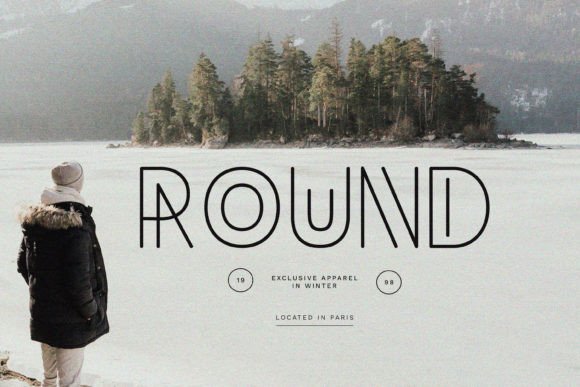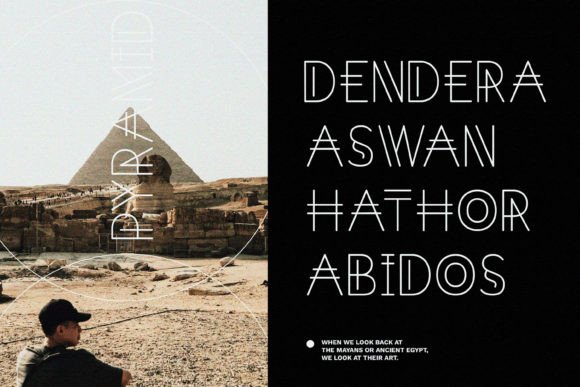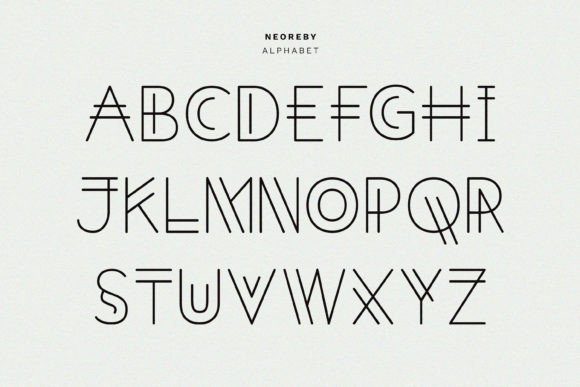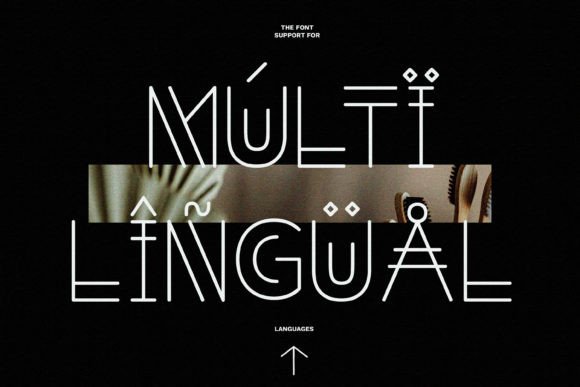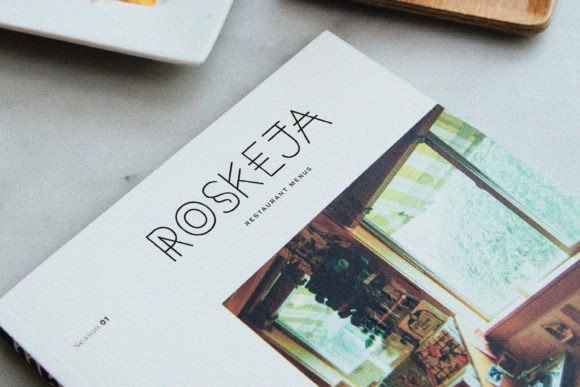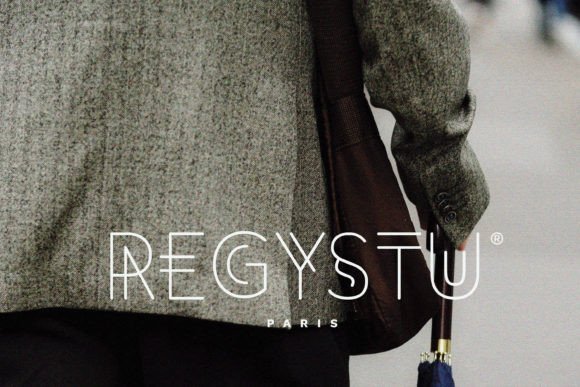
Introduction to Neoreby Font
Have you ever found yourself in a creative rut, staring at a blank page, searching for the perfect design element to bring your project to life? You’re not alone. As designers, we’ve all been there – yearning for that elusive spark that sets our imagination ablaze. For many of us, the right font can be the catalyst we need to breathe new life into our creative endeavors.
Enter the Neoreby Font, a game-changing design resource that’s been making waves in the design community. With its sleek, modern aesthetic and clean lines, this high-quality font is the perfect addition to any creative project. Whether you’re working on a digital design, a branding project, or a simple text-based graphic, the Neoreby Font is sure to elevate your design to the next level.
Not only is the Neoreby Font a stunning design element, but it’s also a valuable resource for designers. With its transparent background and crisp, clear typography, this font is a must-have for any design enthusiast. And the best part? It’s available for free download, making it an accessible and affordable addition to your design arsenal.
Key Features of Neoreby Font
- High-quality design resource suitable for creative projects, including graphic design, digital art, and typography.
- Features a transparent background, allowing for seamless integration with any design or image, giving users maximum flexibility and creativity.
- Includes a wide range of characters and glyphs, making it a versatile font suitable for various design applications.
- Designed with a modern and sleek aesthetic, making it perfect for contemporary design projects and creative expressions.
- Supports high-resolution displays, ensuring crisp and clear text rendering, ideal for use in print and digital media.
- Comes in a single weight, making it easy to use and customize for different design purposes.
Honest Review: Neoreby Font
I recently came across the Neoreby Font while searching for a high-quality design resource to enhance my creative project. I was excited to try it out and see if it met my expectations.
Here are the things that work well: ✨
- Professional and sleek appearance: The Neoreby Font has a modern and sophisticated look that makes it perfect for corporate or business-related projects.
- High-quality glyphs: The font has a wide range of glyphs, including international characters, which makes it a great choice for projects that require a lot of text.
However, there are a few limitations: ⚠️
- Limited customization options: The Neoreby Font is a pre-designed font, which means that you can’t customize it to fit your specific needs.
- No transparent background: The font has a solid background, which may not be ideal for projects that require a transparent background.
Overall, I was impressed with the Neoreby Font and would definitely recommend it to designers who are looking for a high-quality, free design resource. However, it’s worth noting that it may not be the best choice for projects that require a lot of customization or a transparent background.
Tips for Getting the Most Out of Neoreby Font
To get the most out of Neoreby Font, use it with a transparent background to create a sleek and modern design. Experiment with different font sizes and colors to add visual interest to your design. You can also use the font in combination with other design elements, such as images and graphics, to create a unique and eye-catching design resource.
Neoreby Font is a versatile design resource that can be used in a variety of creative projects, including logos, brochures, and social media graphics. Its high-quality design makes it an ideal choice for businesses and individuals looking to create a professional and modern image. You can download the font for free and use it in your next design project.
Yes, the Neoreby Font has a transparent background, making it easy to use in design projects that require a clear or gradient background. This feature allows for seamless integration with your design, giving you more creative control.